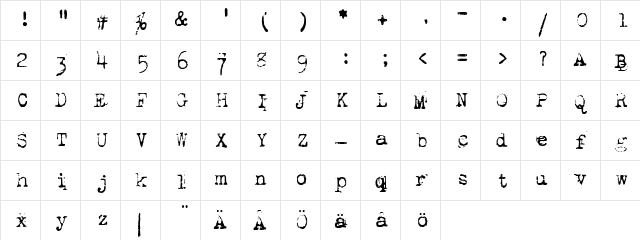
1942 report 1942 report Font Preview
Design Context for 1942 report Typeface
1942 report is a composed and adaptable typeface that performs quietly and consistently across a wide range of design contexts.
Pro Tip: Use 1942 report in both headline and body roles to test its range before committing to a single application.